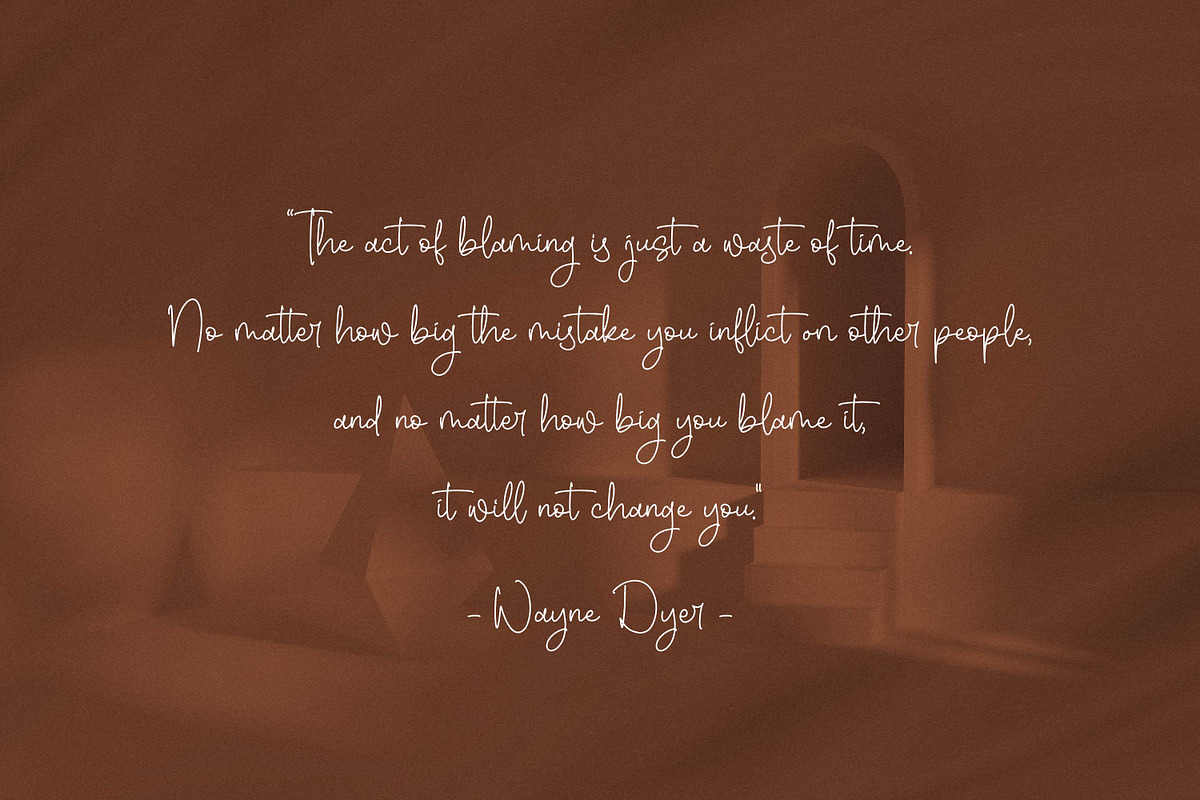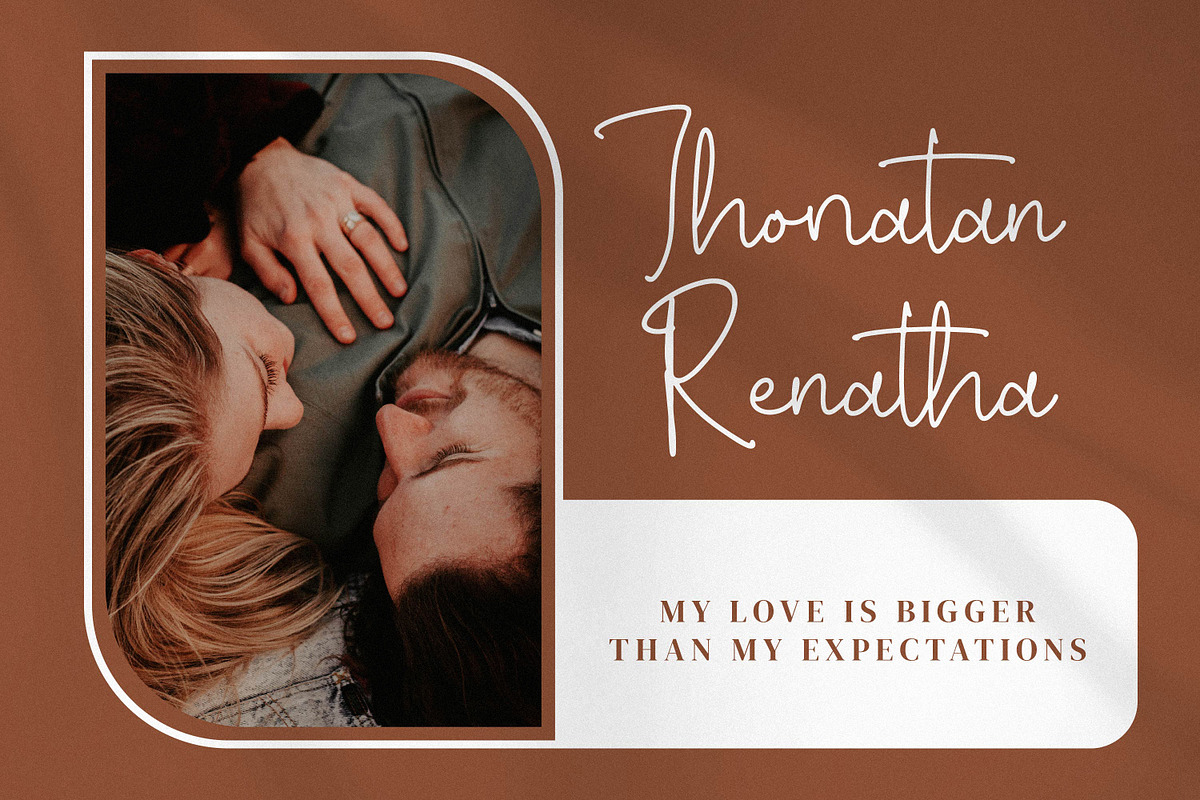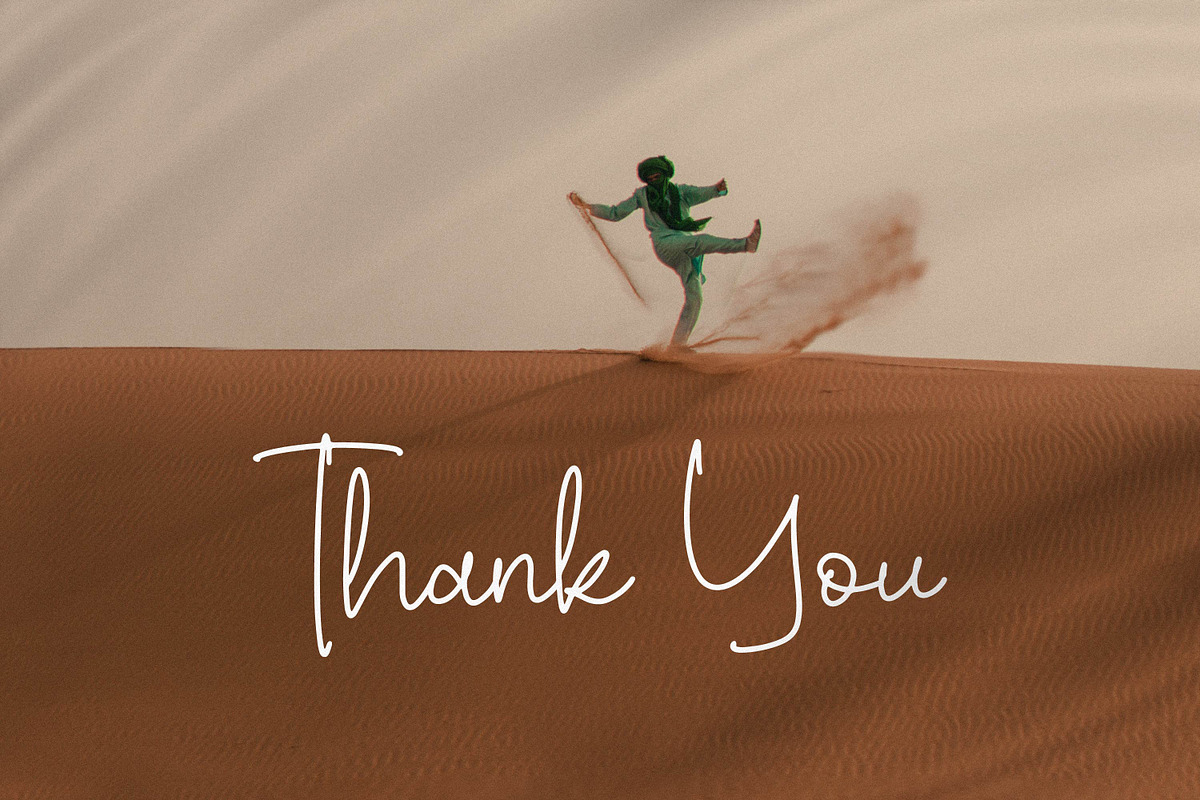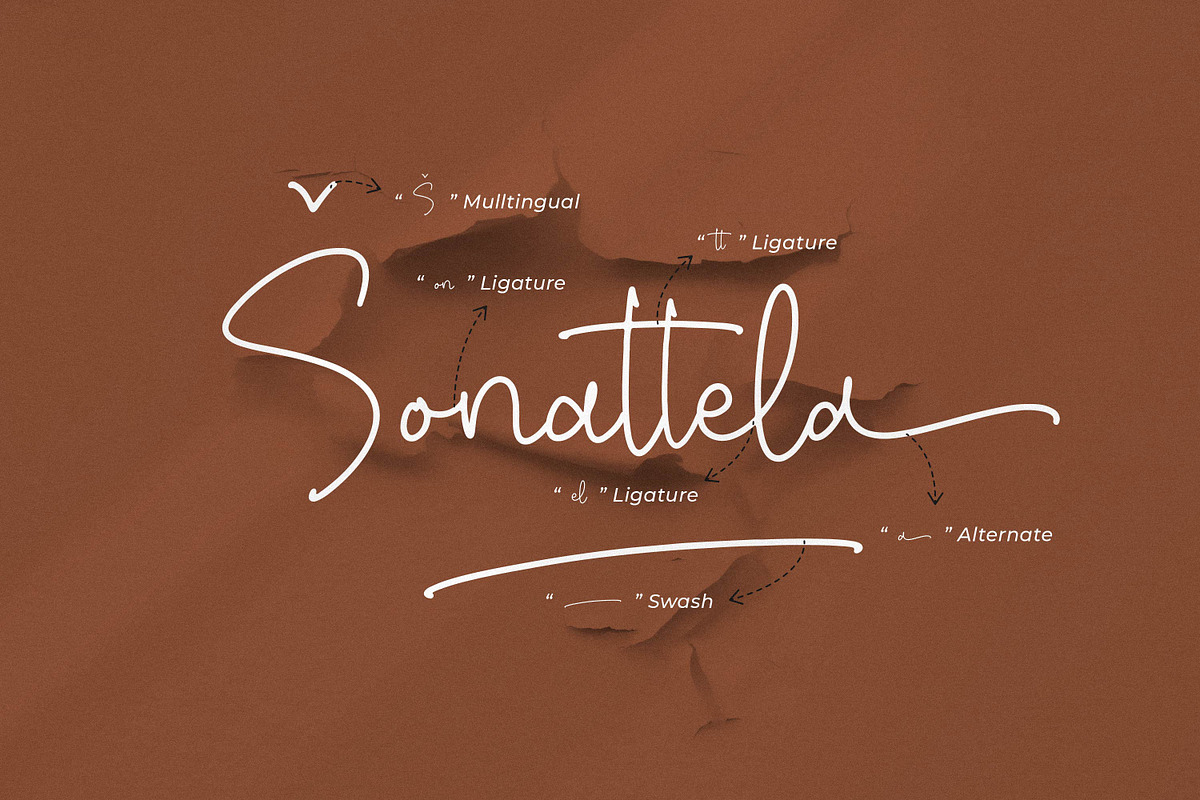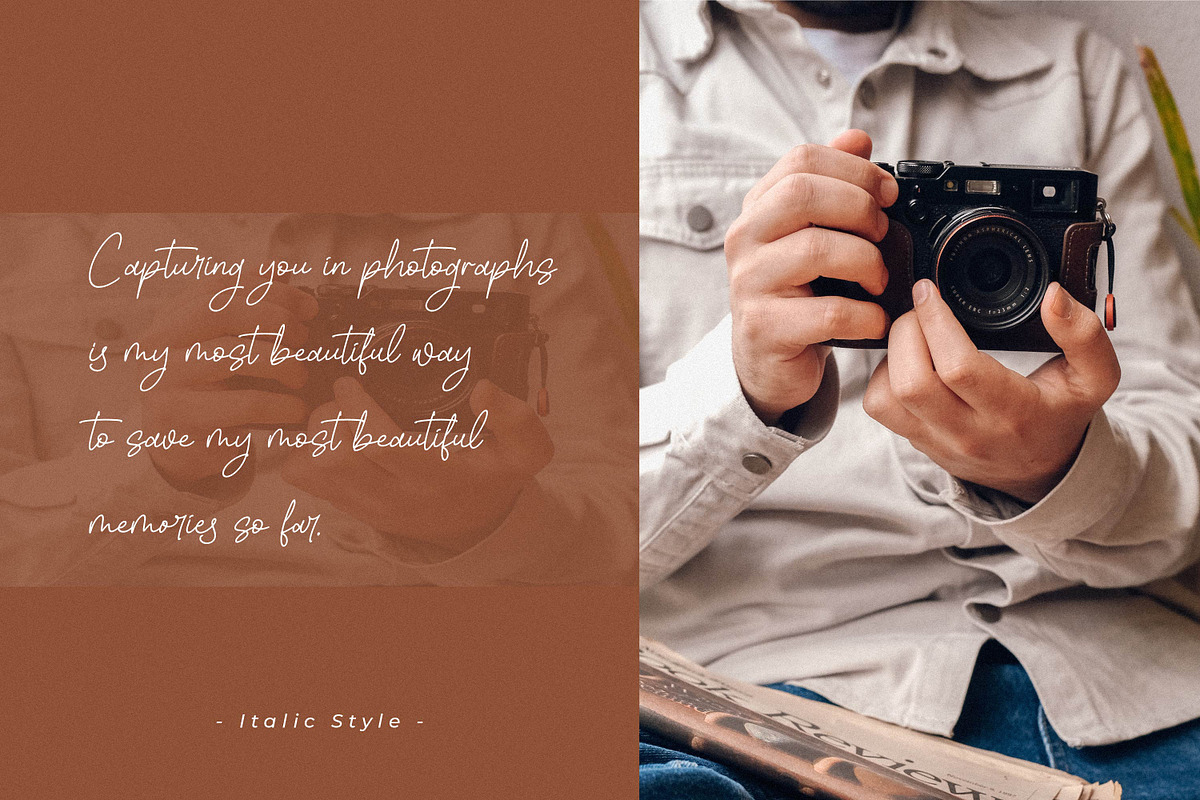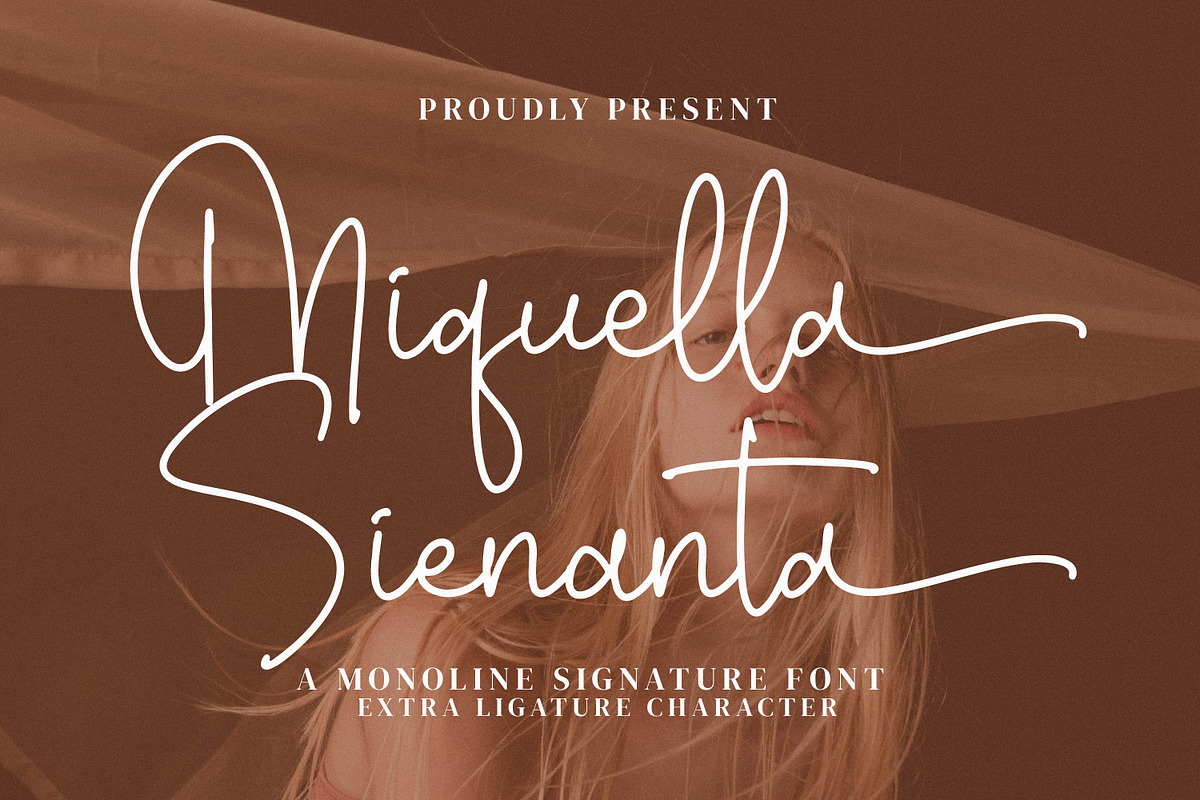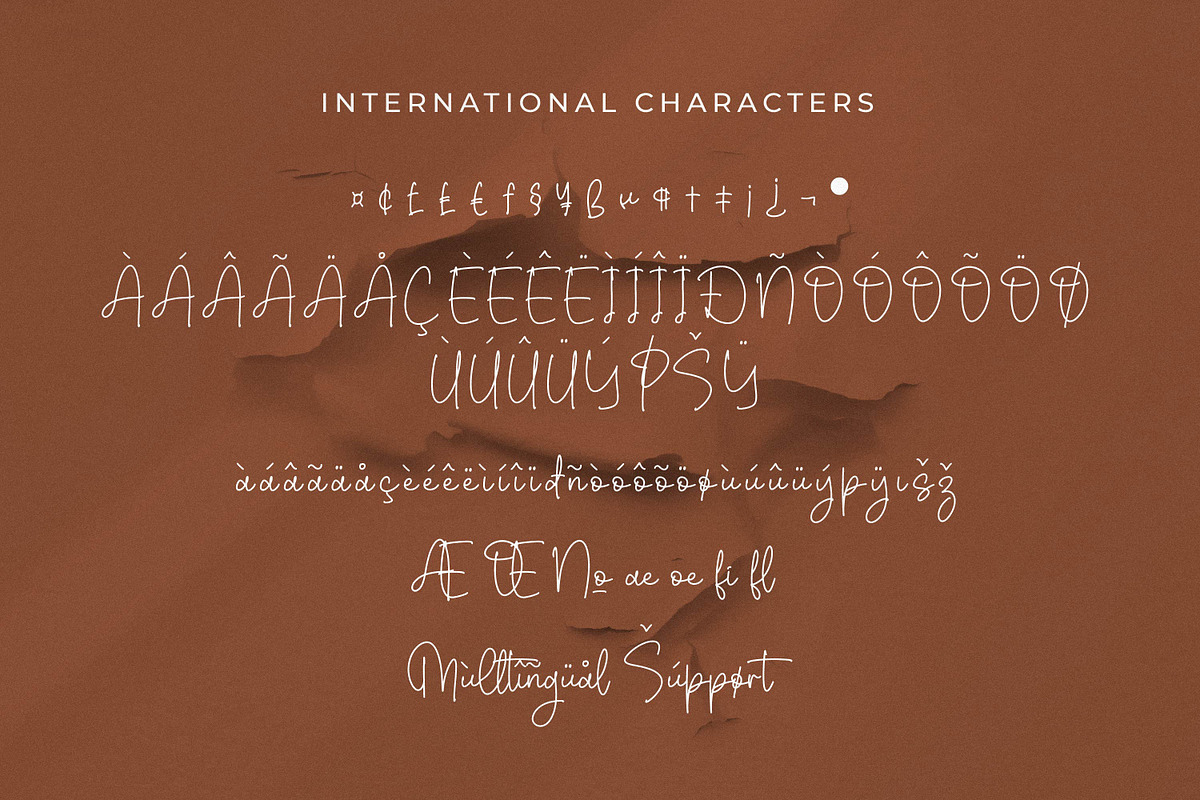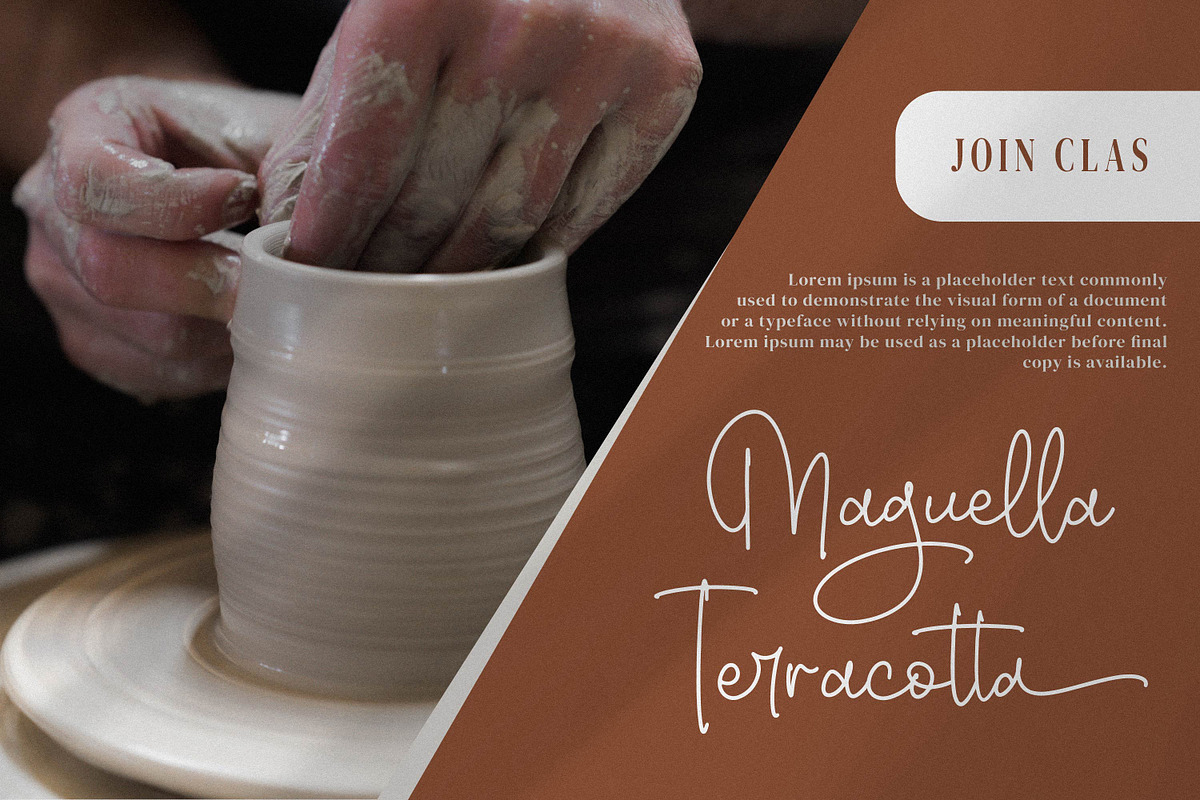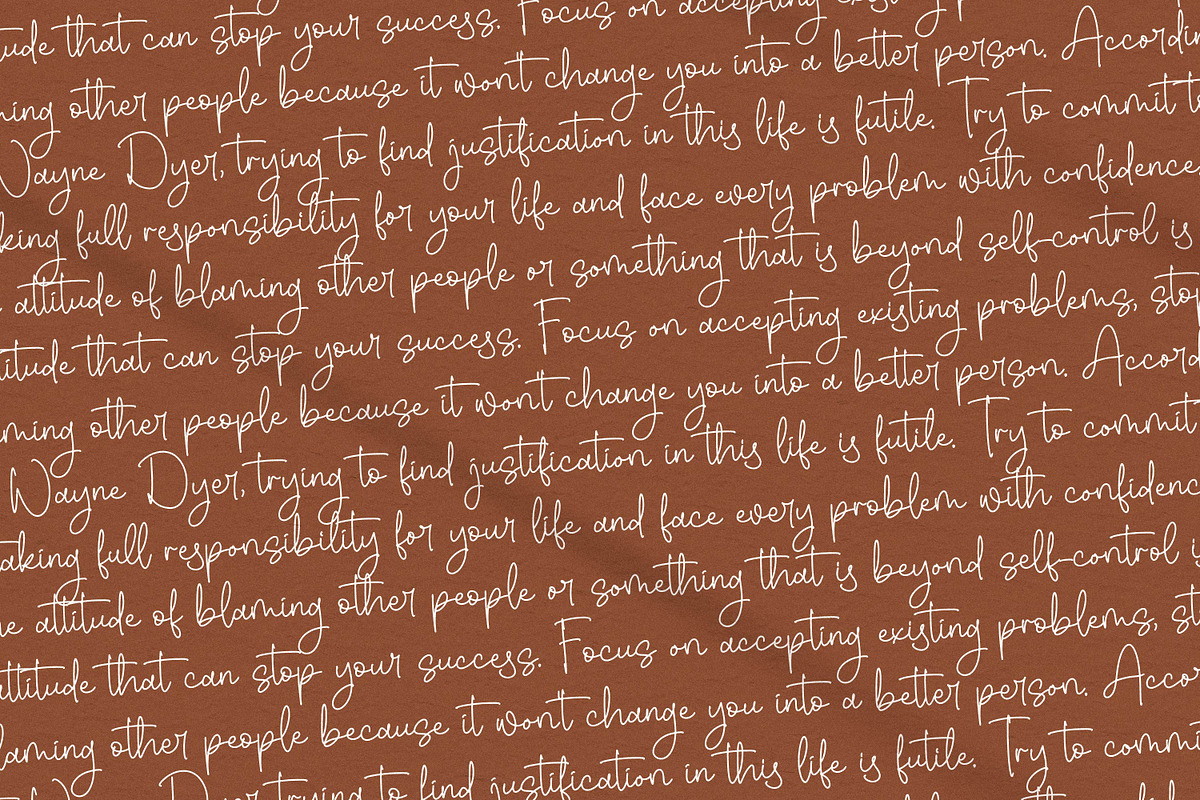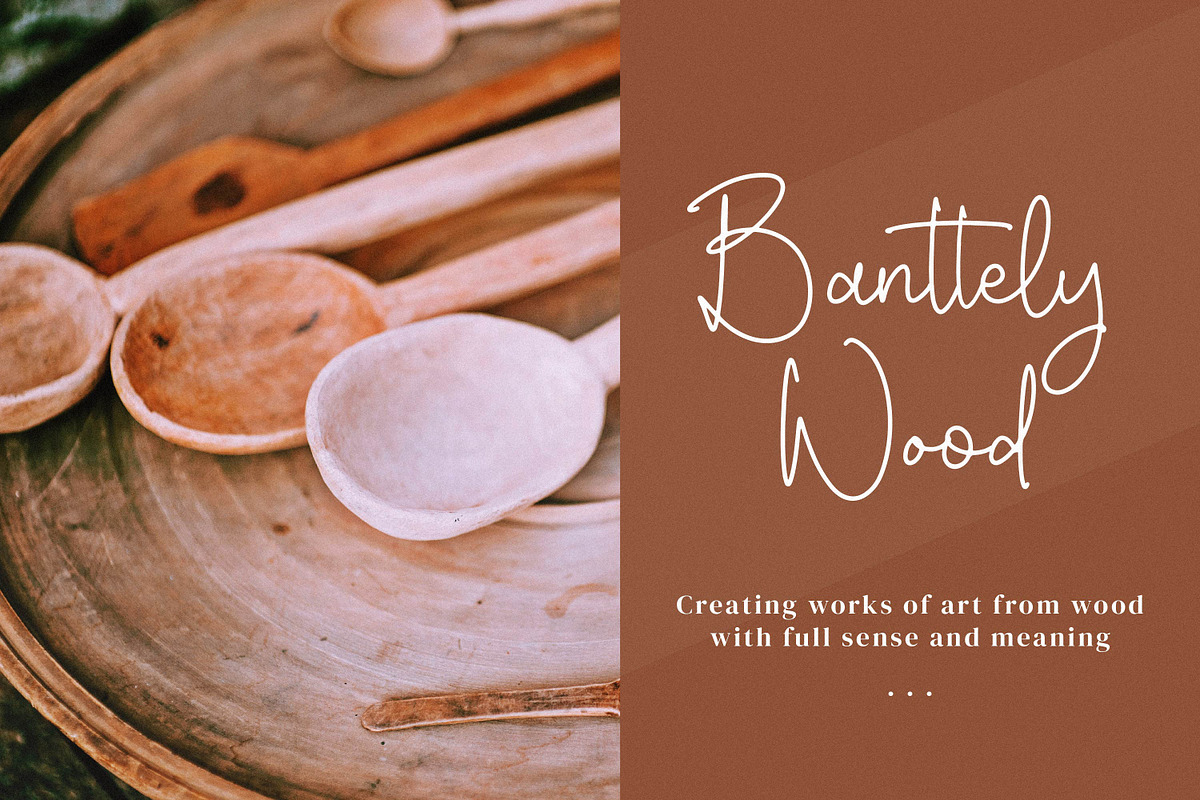
Miquella Sienanta
Miquella Sienanta - Monoline Signature Font, from Integritype Studio, is a premium Monoline Signature Font, perfect for any project like: logos, branding projects, homewares designs, product packaging, mugs, quotes, posters, shopping bags, t-shirts, covers books, business cards, invitation cards, greeting cards, labels, photography, watermarks, special events and all your other luxury projects that require a premium taste.
Ligatures, Alternatives & Swashes